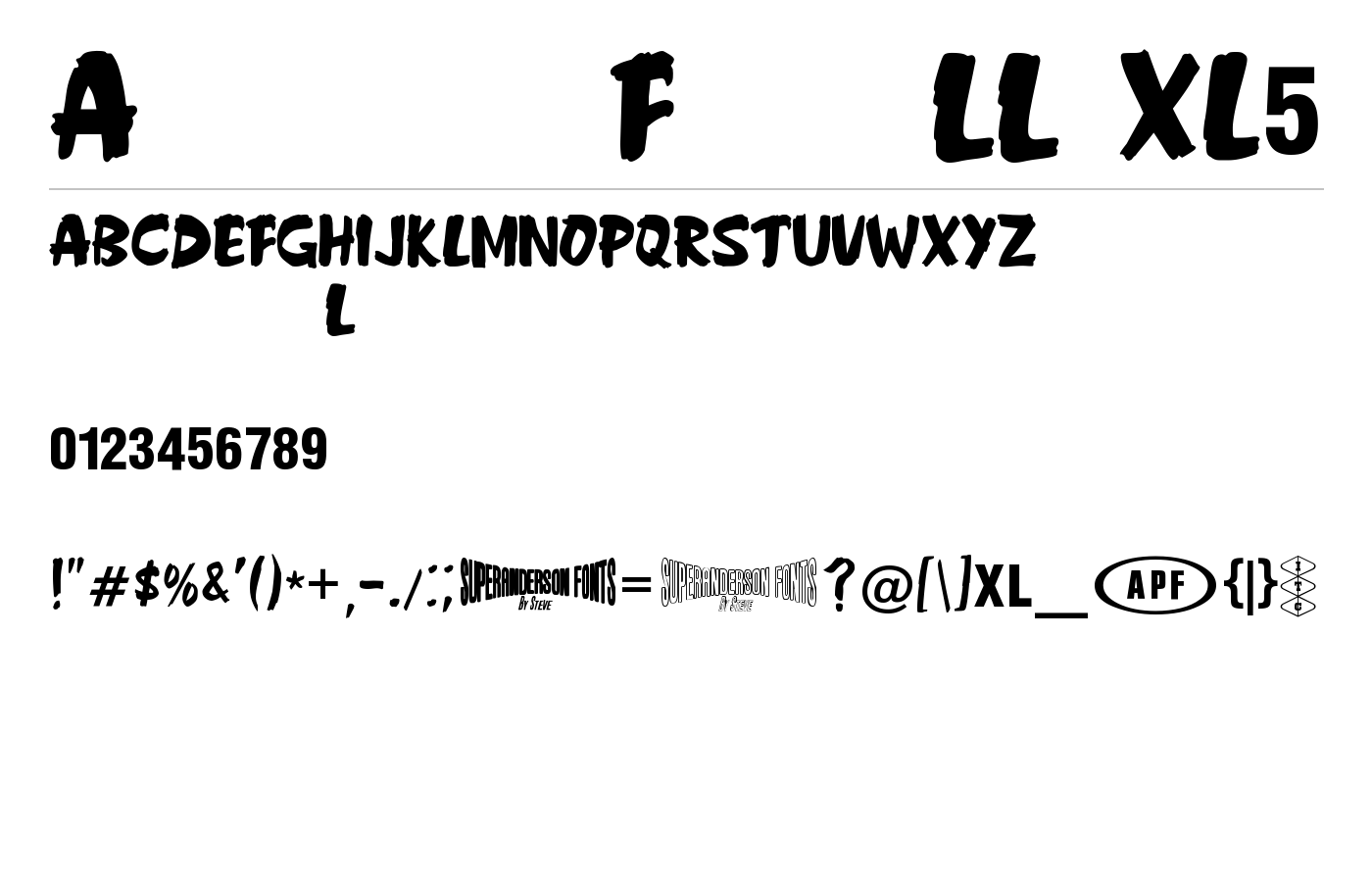
Anderson Fireball XL5 is a bold, playful display font with a hand-drawn, slightly irregular style that adds a sense of fun and energy. Its thick, rounded strokes and all-uppercase characters make it perfect for eye-catching headlines, posters, and branding that wants to convey a casual, lively personality. This font works well in creative projects and youth-oriented designs seeking a strong, informal vibe.
Anderson Fireball XL5 Font
About Anderson Fireball XL5 Font